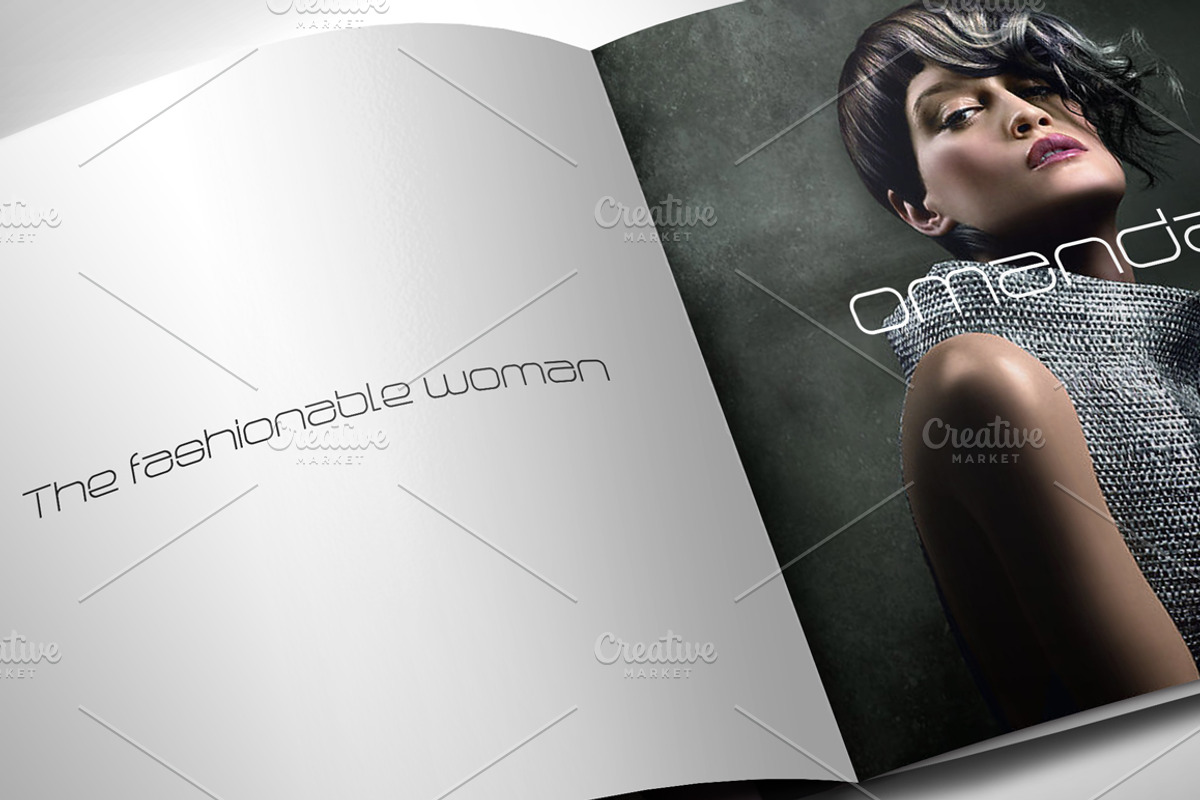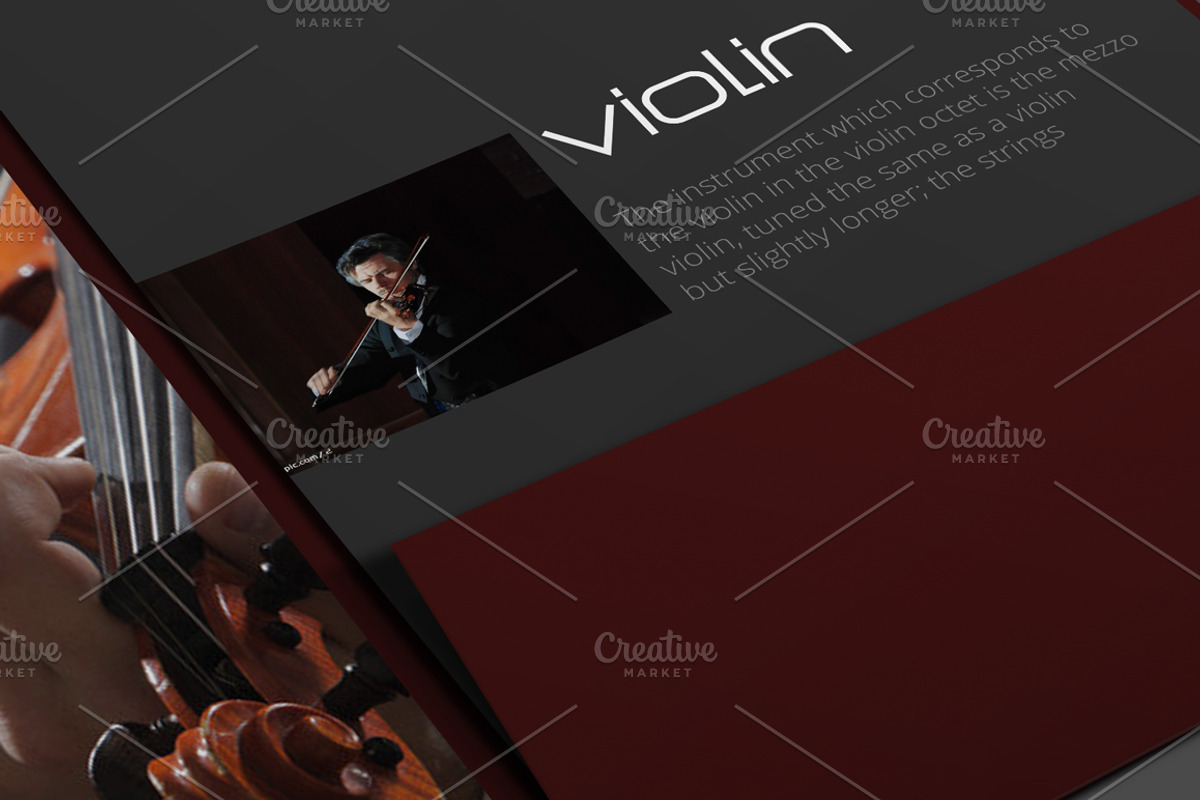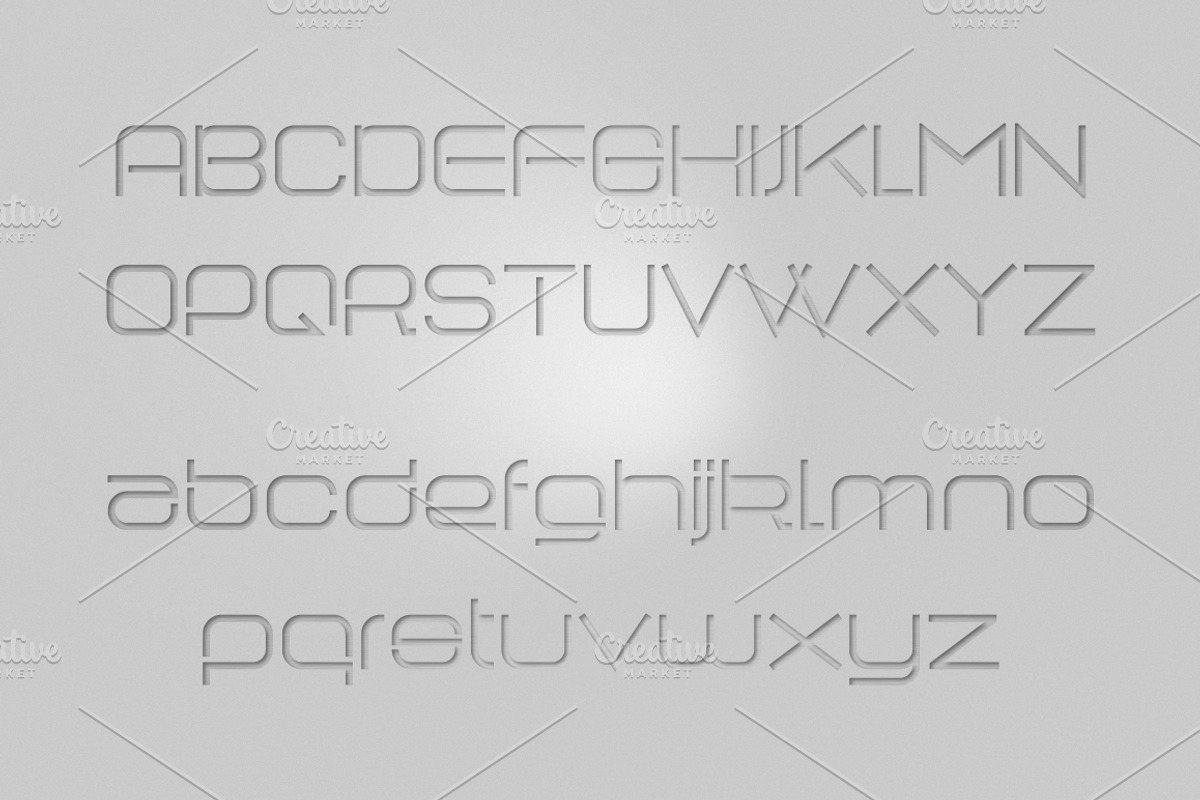
Dome TrueType Font
Dome TrueType Font by alphadesign is a font selected for branding, posters, packaging, typography.
- Dome is Fashion font, powerful and stylish, suitable for advertising, fashion design, fashion show, contains 220 glyphs.
Why Dome TrueType Font is worth a look
Dome TrueType Font by alphadesign fits naturally into Branding, posters, packaging, typography.